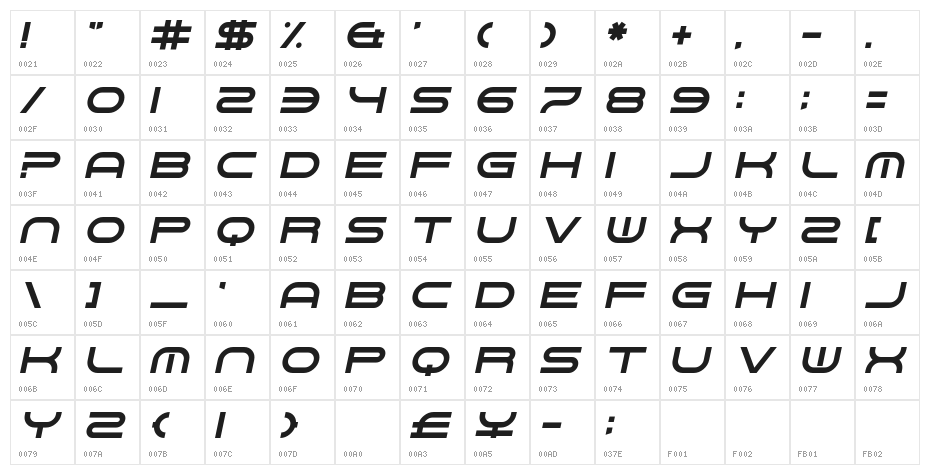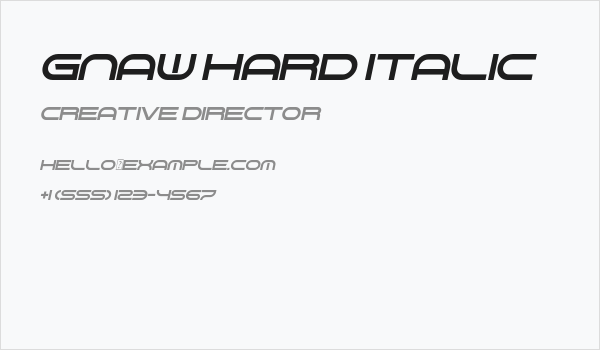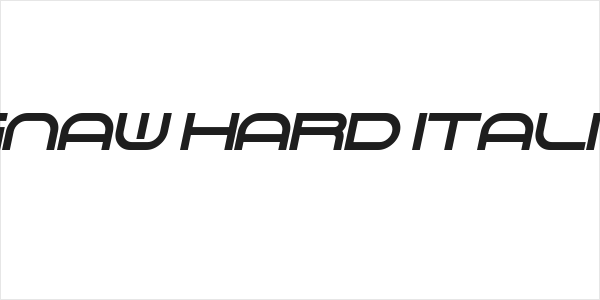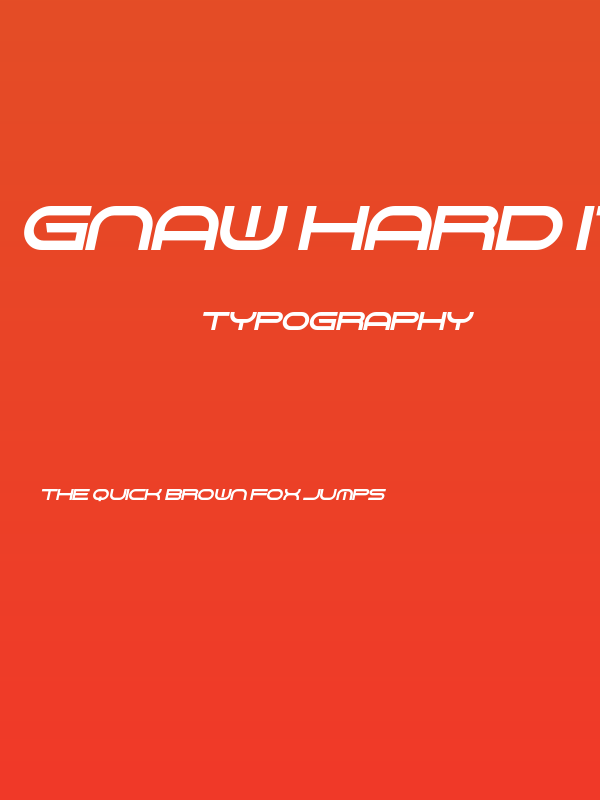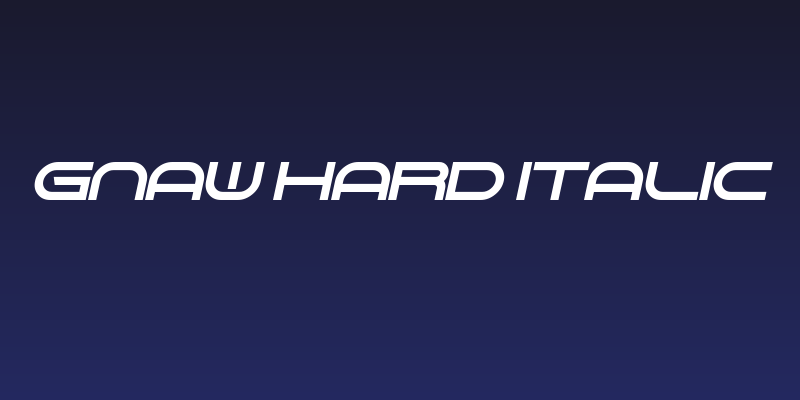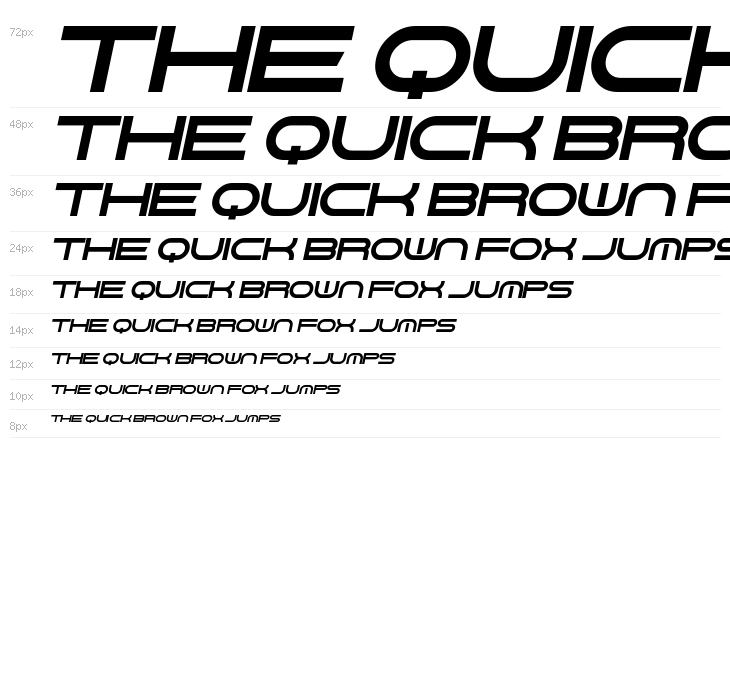
Gnaw Hard Italic Font
Gnaw Hard Italic Description
This font features a bold, futuristic design with a distinct italic slant, giving it a dynamic and forward-moving appearance. The characters are constructed with geometric precision, incorporating sharp angles and clean lines that convey a sense of modernity and technological advancement. The uppercase and lowercase letters maintain a consistent style, with the lowercase letters mirroring the uppercase in form but scaled down. The numerals are equally bold and angular, ensuring readability while maintaining the overall aesthetic. Special characters are designed to match the font's sleek and modern look, making them suitable for various applications. The font's unique style makes it ideal for projects that require a contemporary and edgy feel.
| Proposed Projects | Ideal for technology branding, sci-fi themed designs, video game interfaces, and modern advertising. |